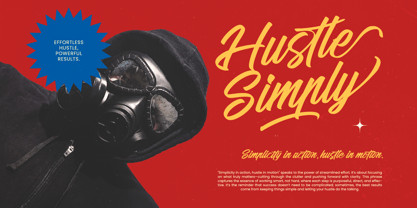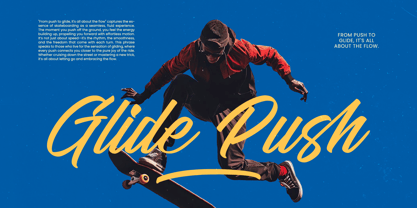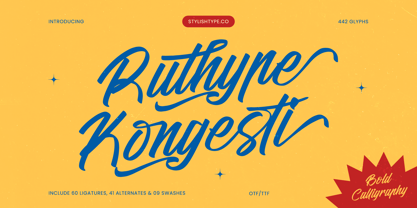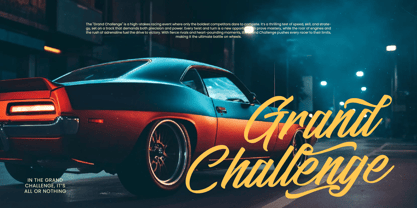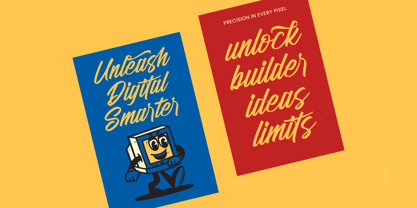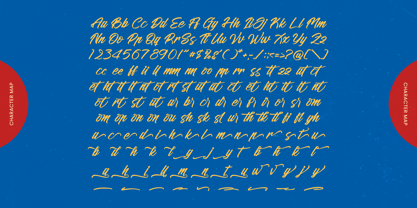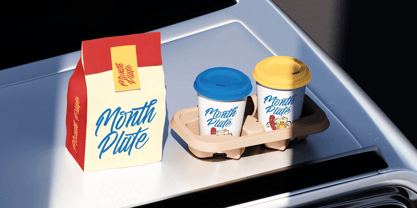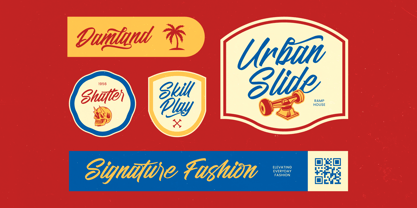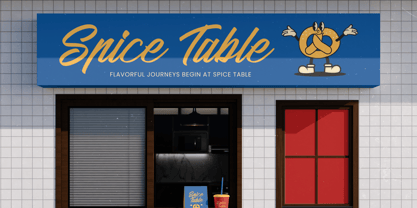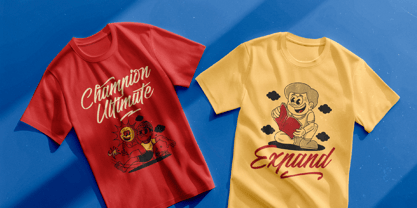
Ruthype Kongesti
by Stylishtype Studio
The Ruthype Kongesti Font Family was designed by Heru Utama Putra and published by Stylishtype Studio. Ruthype Kongesti contains 2 styles and family package options. More about this family
Ruthype Kongesti - Bold Calligraphy. This premium script typeface blends the fluid grace of traditional handwriting with a modern, bold aesthetic. Its dynamic letterforms and high-contrast strokes create a sense of movement and energy that is impossible to ignore. Whether you are aiming for a sense of artisanal craftsmanship or high-end sophistication, Ruthype Kongesti - Bold Calligraphy provides the perfect balance of personality and professional polish. Designed for ultimate flexibility, this typeface is equipped with an impressive suite of Opentype features. With its extensive multilingual support, Ruthype Kongesti - Bold Calligraphy adapts seamlessly across global markets, making it incredibly versatile for international projects. Featuring over 400 glyphs, including a rich variety of artistic swashes and stylistic ligatures, it allows designers to craft truly unique typography tailored to any language. This global adaptability ensures that Ruthype Kongesti - Bold Calligraphy remains a top choice for brands looking to make a lasting impression worldwide.
Ruthype Kongesti